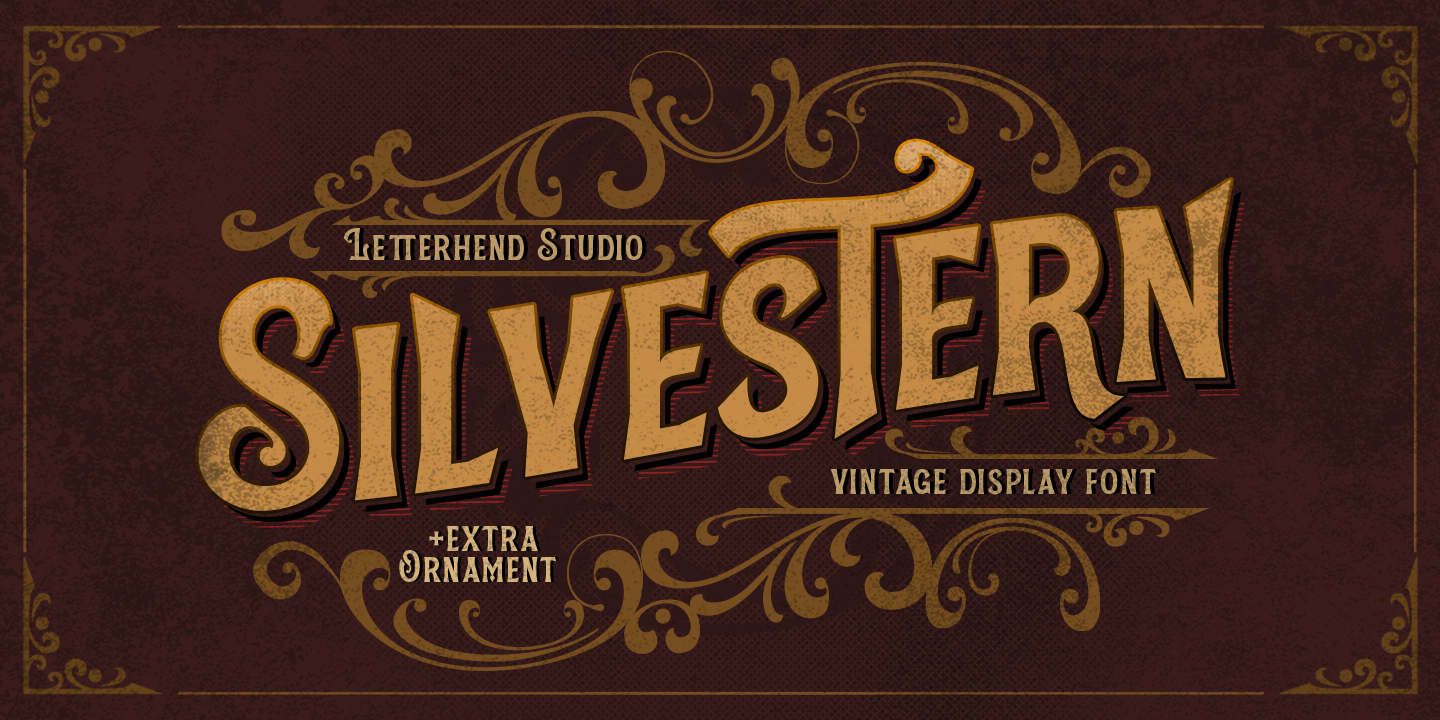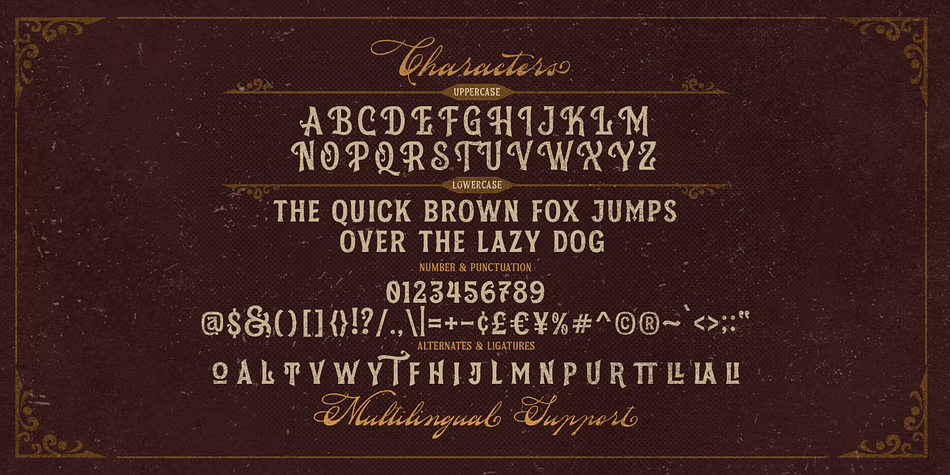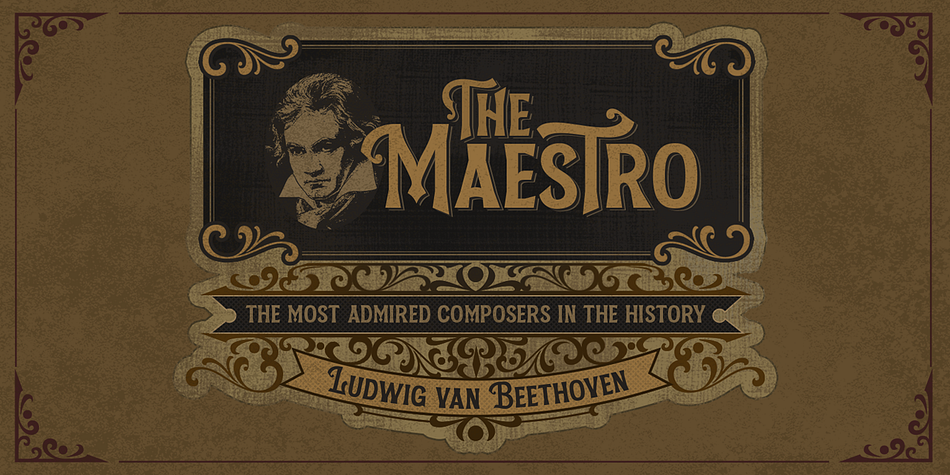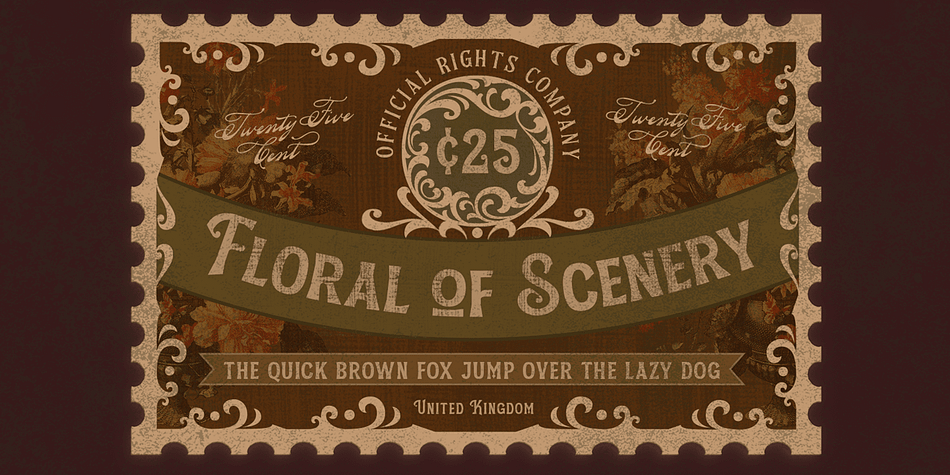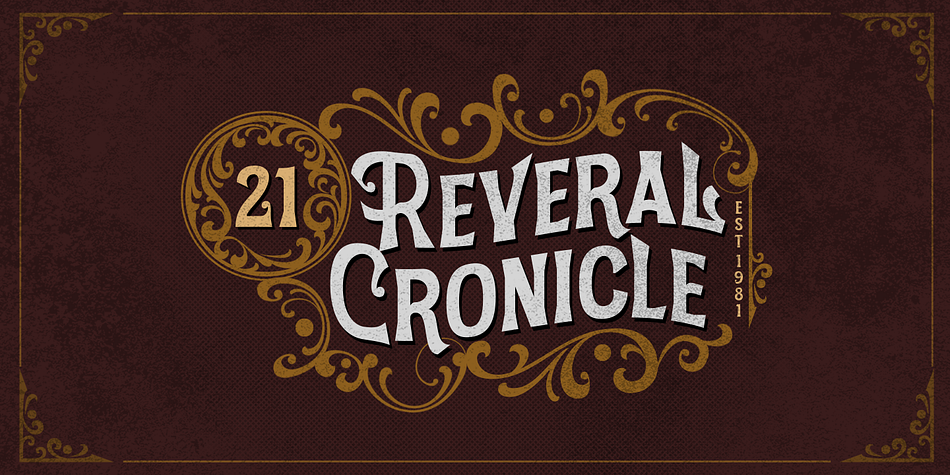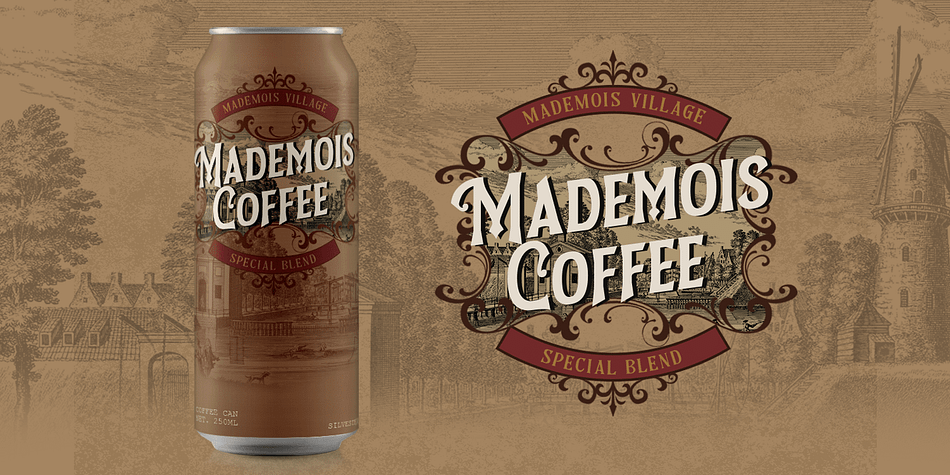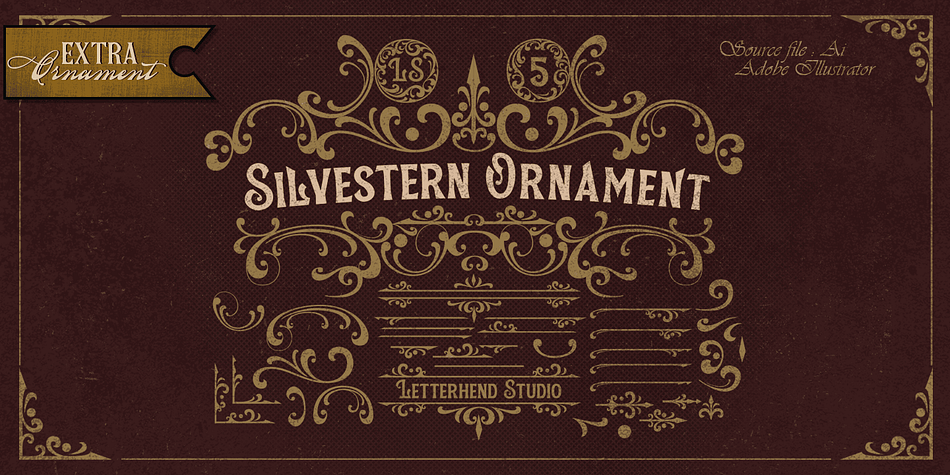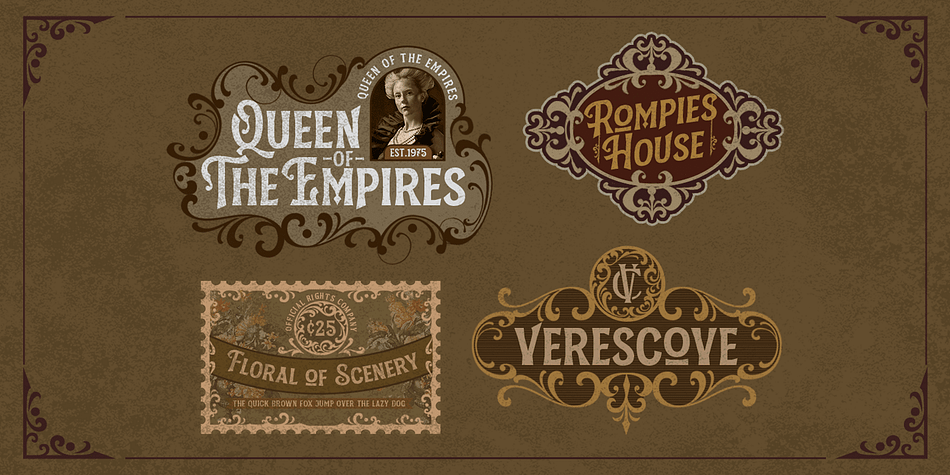
Silvestern
Designed by Hendry Juanda, Silvestern is a display font published by Letterhend Studio.
Introducing, Silvestern. A vintage display typeface with the touch of nostalgic feel yet still looks luxury in a modern design concept. This typeface has unique looks and strong character with its ornament as bonus. This font perfectly made to be applied especially in logo, and the other various formal forms such as invitations, labels, magazines, books, greeting / wedding cards, packaging, fashion, make up, stationery, novels, labels or any type of advertising purpose.
- Uppercase & lowercase (alternates)
- Stylistic alternates
- Extra ornament in vector